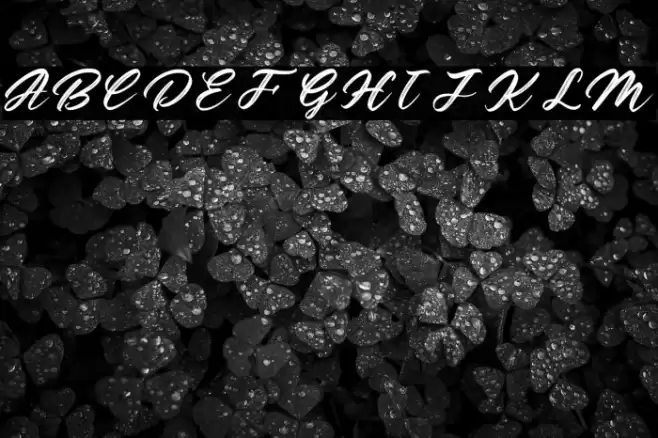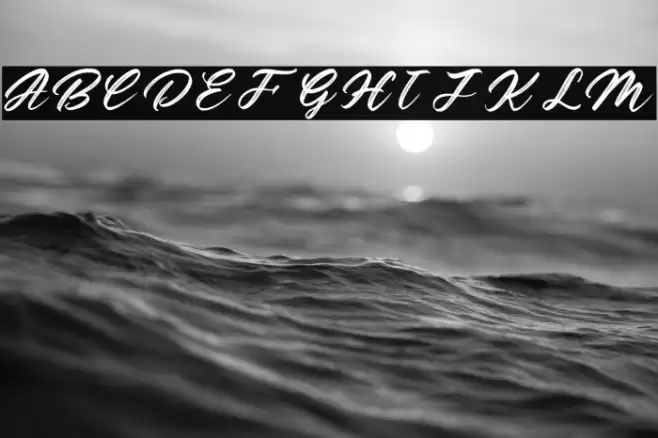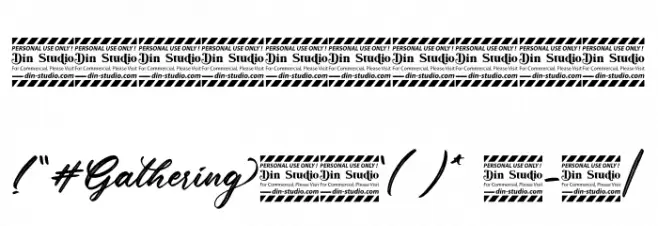
Gathering Personal Use Font
Gathering Personal Use Description
This font features a dynamic and flowing script style, characterized by its elegant and cursive letterforms. The uppercase letters are slightly more ornate, with sweeping curves and flourishes that add a touch of sophistication. The lowercase letters maintain a consistent rhythm, with smooth connections between each character, enhancing readability. The font exhibits a bold weight, providing a strong visual presence, while the character spacing is moderately tight, ensuring a cohesive appearance. The overall style is modern and decorative, making it suitable for creative and expressive design projects.
A bold, flowing script font with elegant, cursive letterforms and a modern decorative style from Uncategorized fonts.
- Font: Gathering Personal Use
- Proposed Projects: Ideal for wedding invitations, branding, logo design, and social media graphics where a touch of elegance and personality is desired.
- Character Spacing: Tight
- Overall Style: Modern, Decorative
- Use Case: Logos, Headlines, Invitations